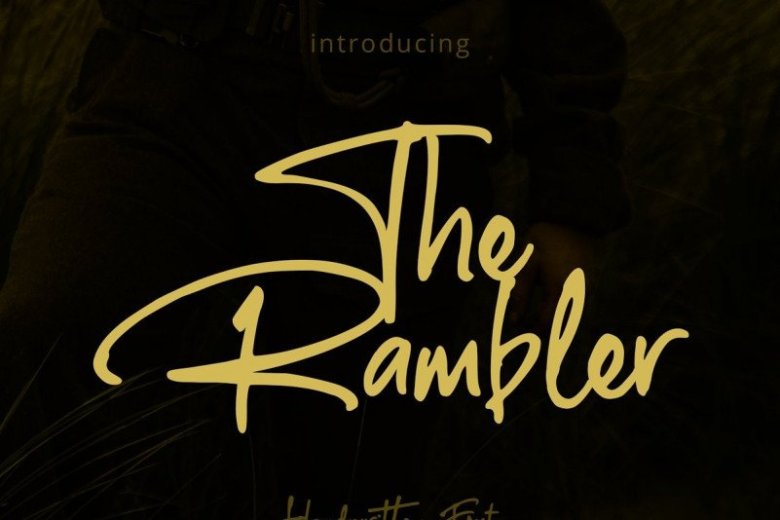
The Rumbler Script Font
Introducing The Rumbler Script Font. This is the modern calligraphy script. It’s an incredibly beautiful script font. It has a classy, elegant, and modern look. It’s was designed by GemesFont. Here you will get a beautiful script font.
This font is available with several modern swirls that can make your work look elegant, sweet and perfect. Can be used for various purposes. Such as post, wedding invitations, brands, signatures, logos, t-shirts, labels, news, posters, etc.